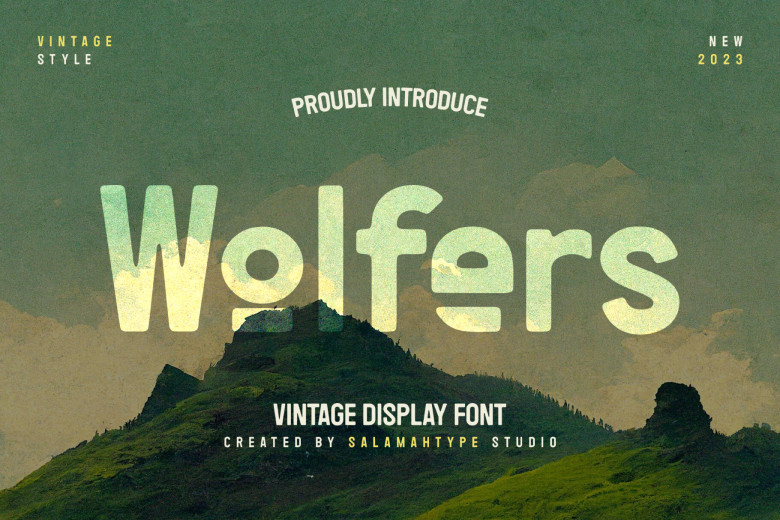
Wolfers Font
Wolfers features an eye-catching classic-looking font, making it the ideal choice for logo, magazine cover designs, banners or corporate graphic design projects.
Wolfers Display Font